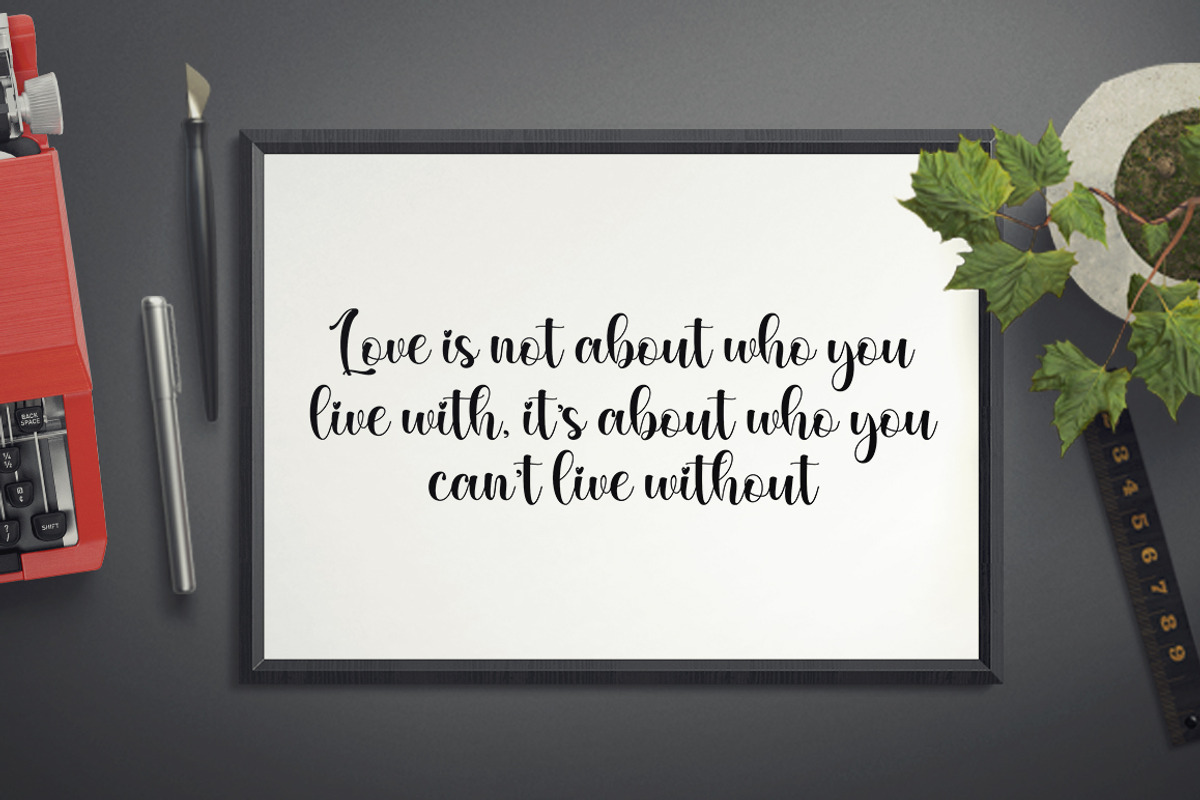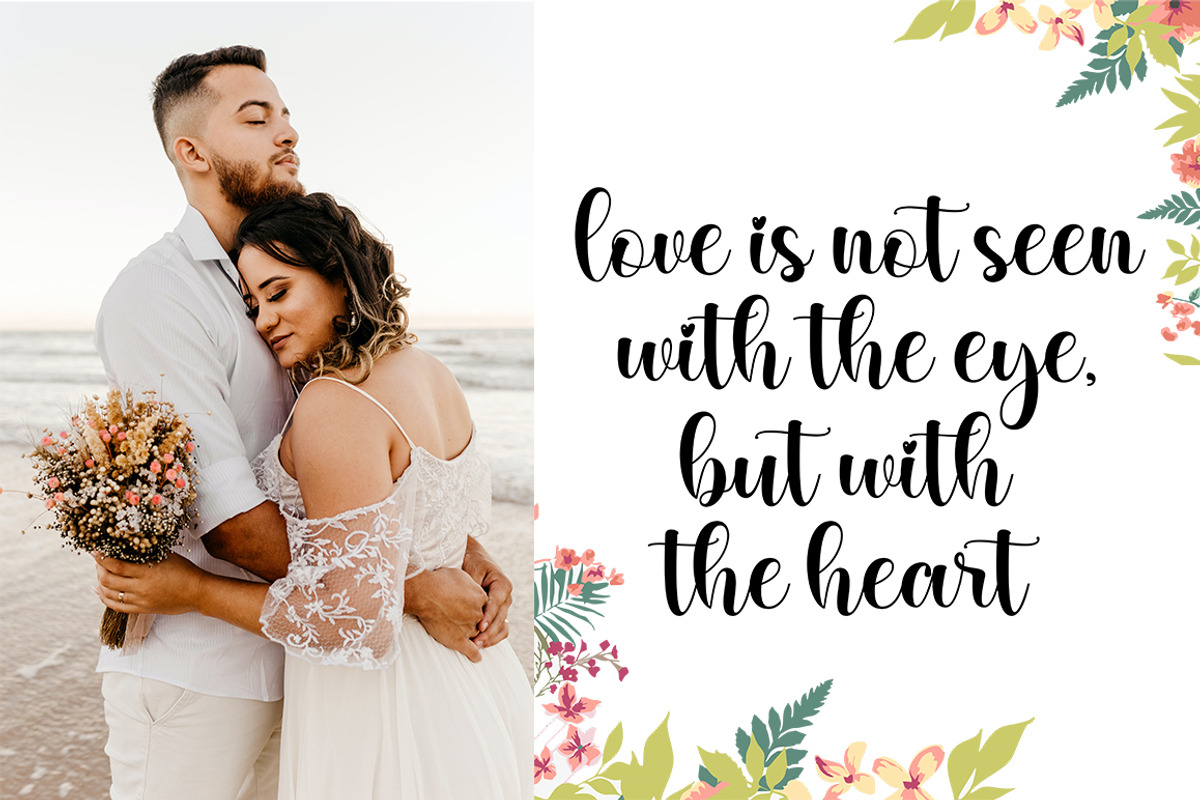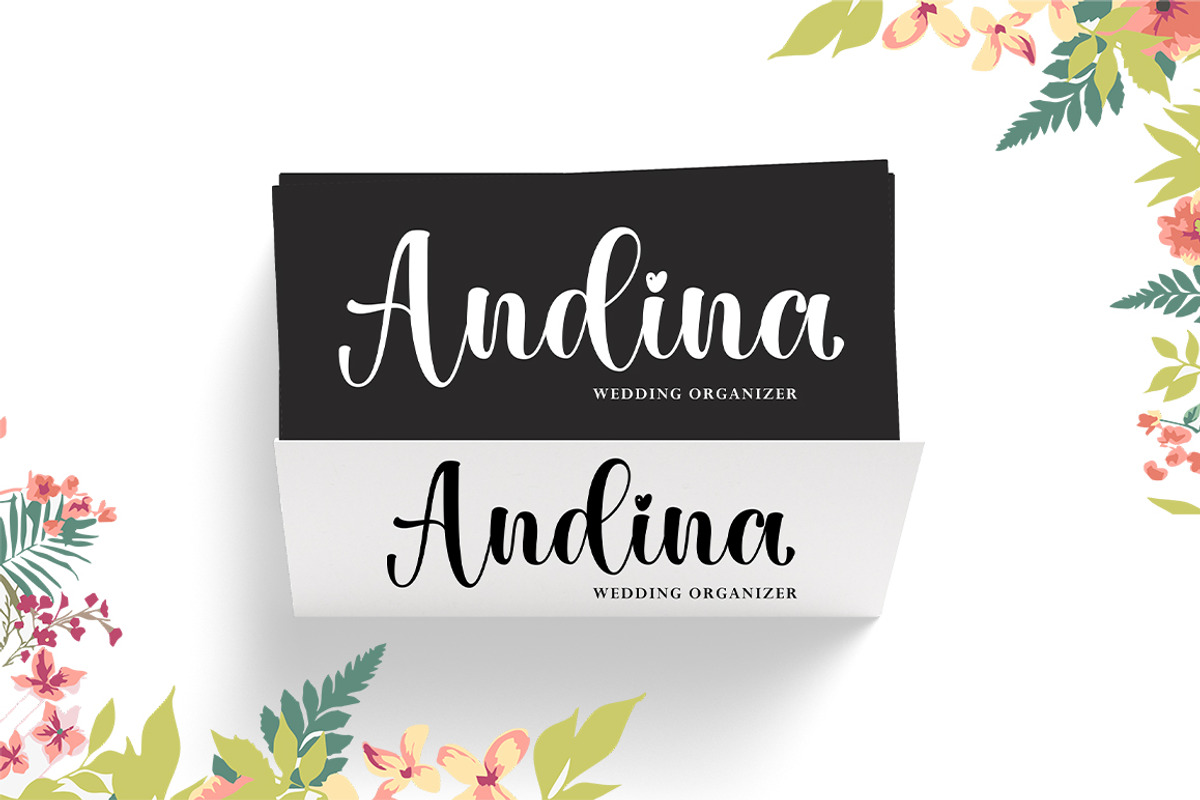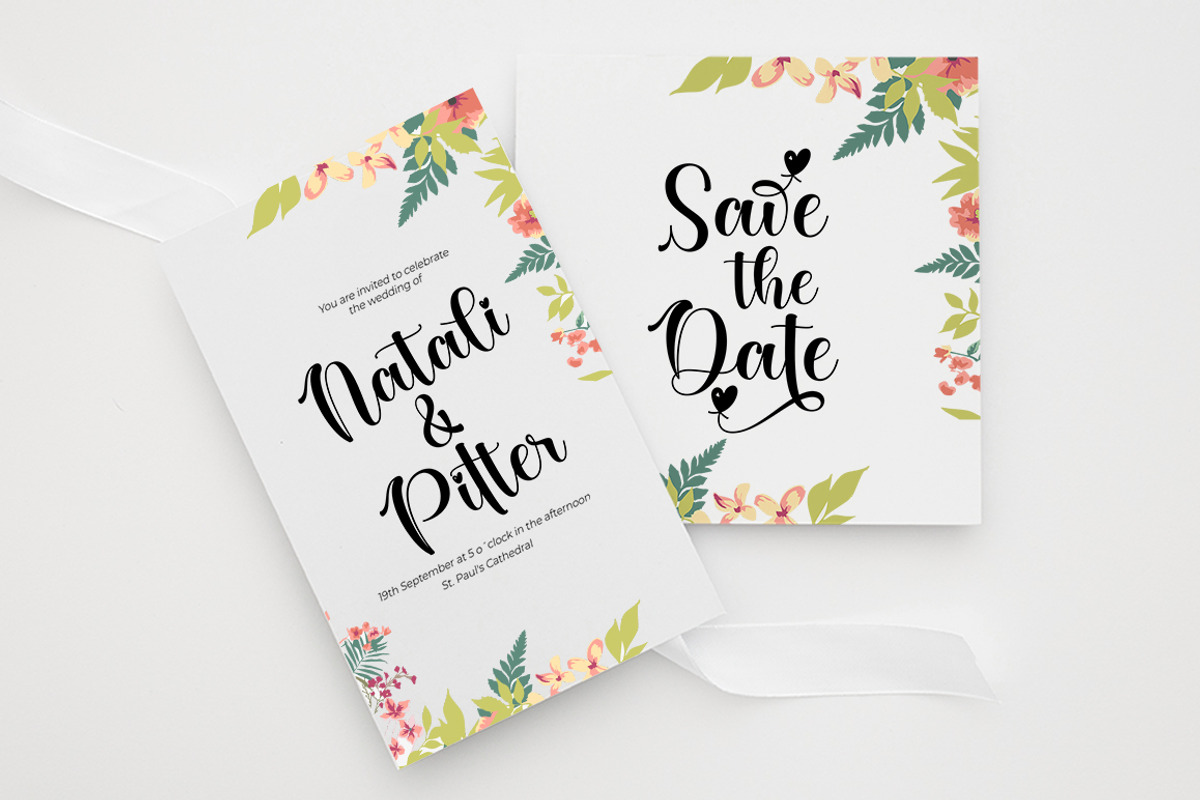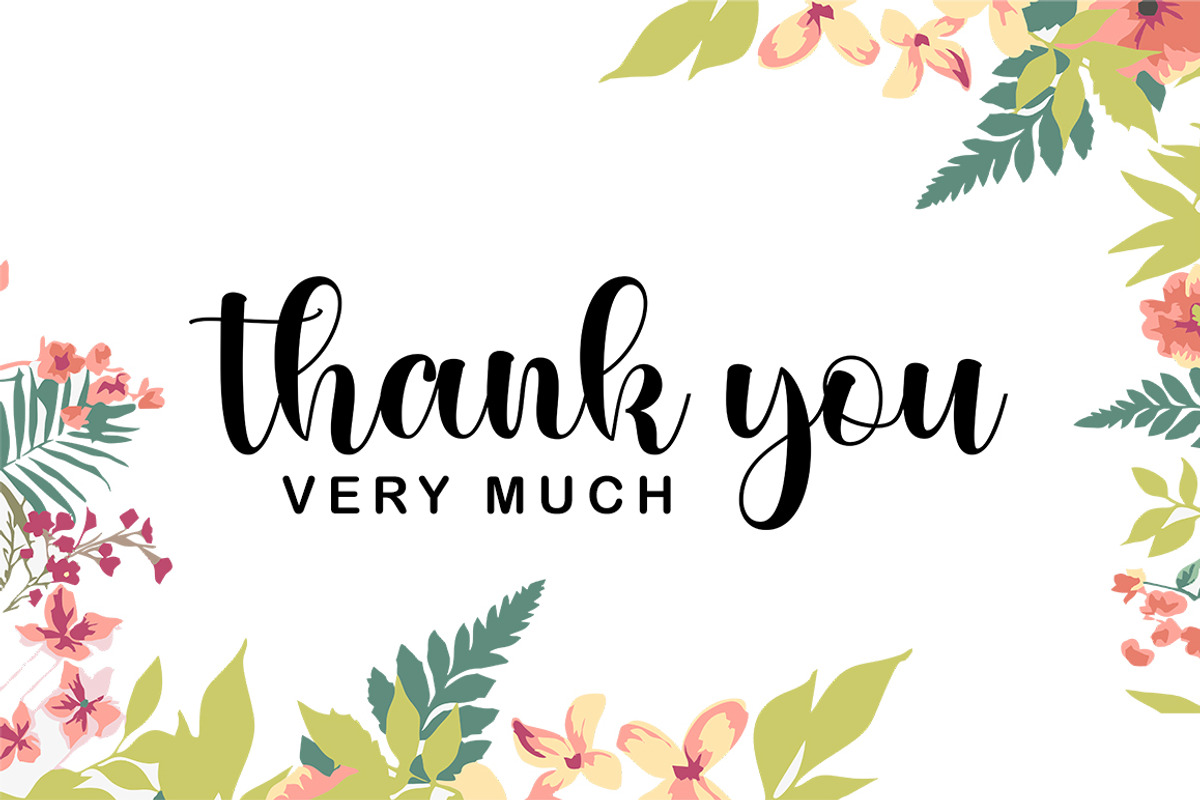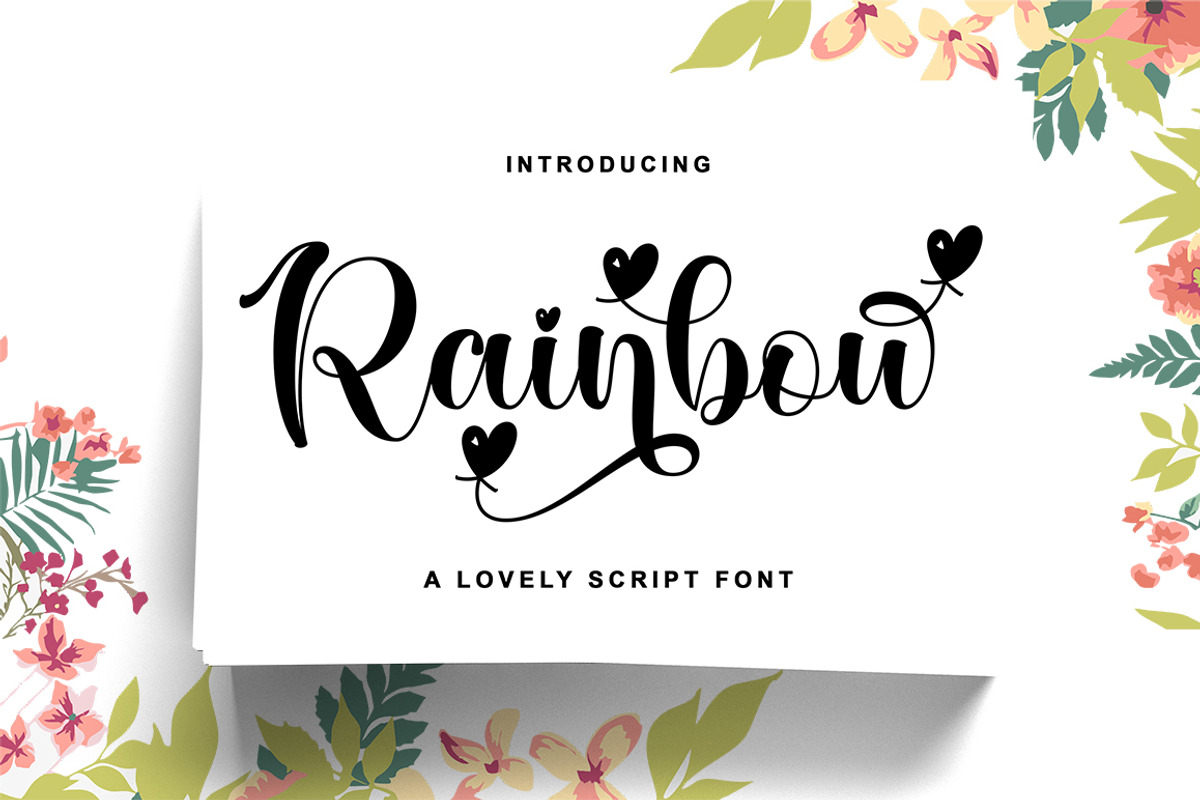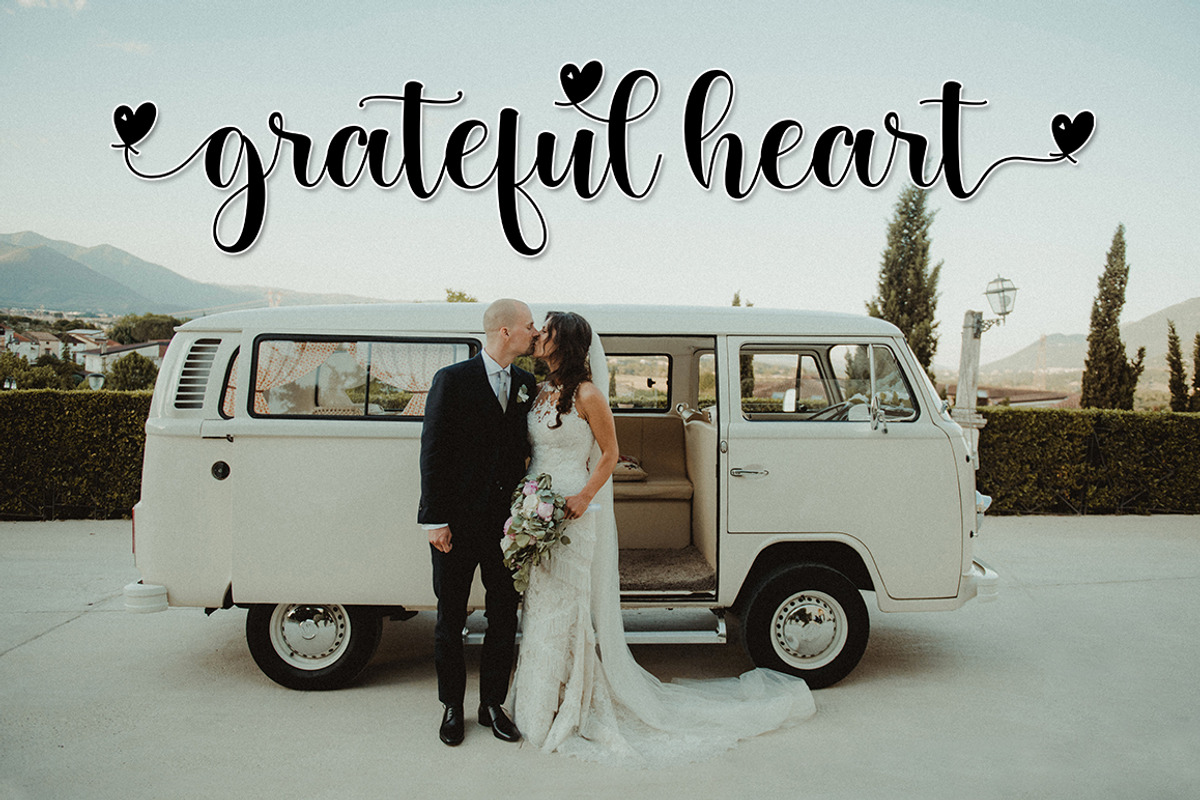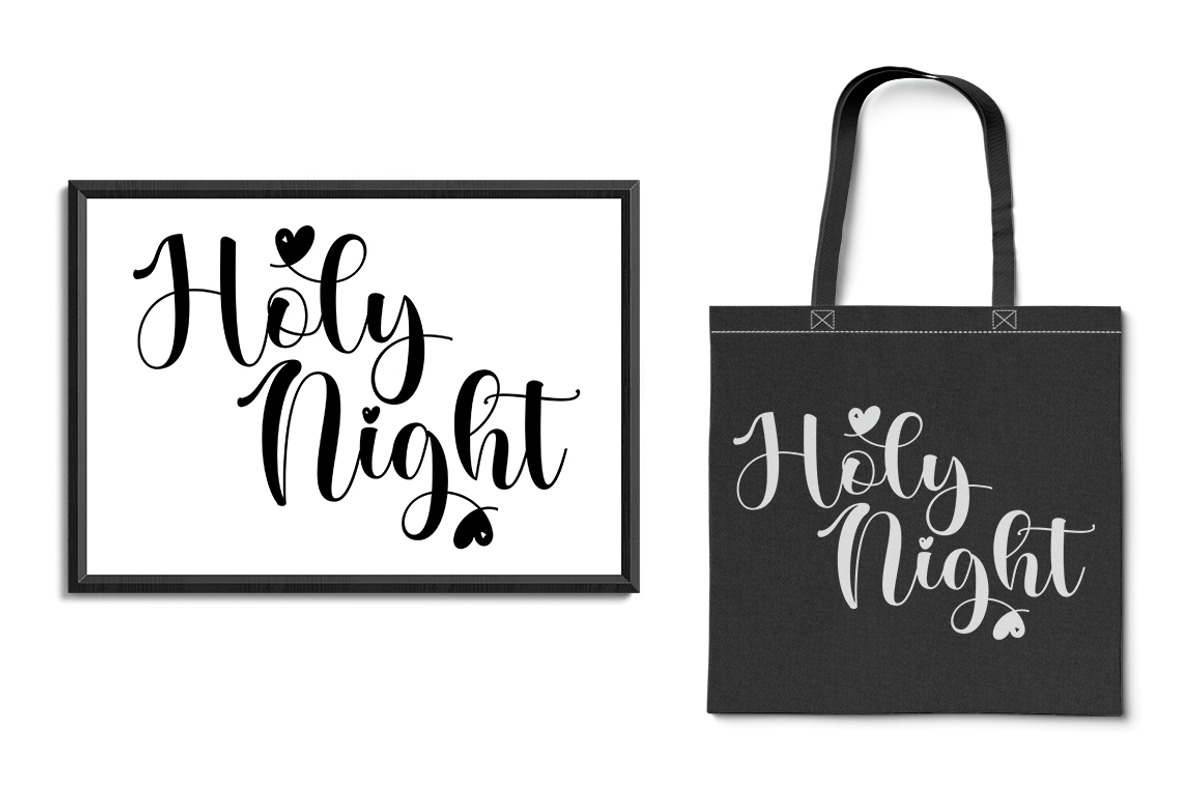
Rainbow
Rainbow is a soft and sweet script typeface, with the characters dancing along its baseline. It has a casual and elegant touch. Can be used for various purposes such as logos, wedding invitations, headers, t-shirts, letterheads, signboards, labels, news, posters, badges etc.
OpenType features with alternate styles, ligatures and multi-language support.